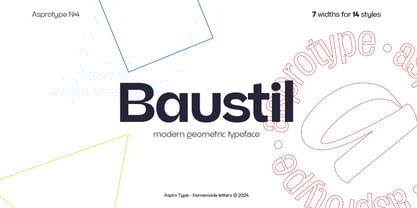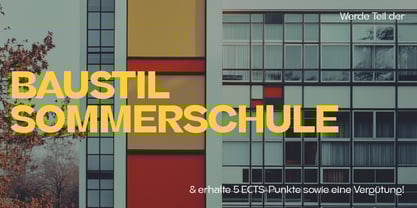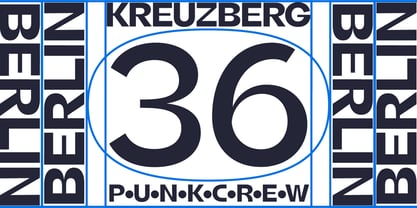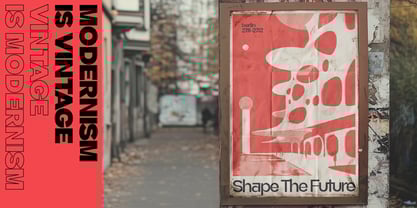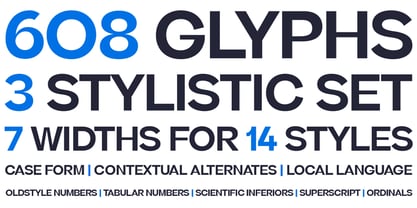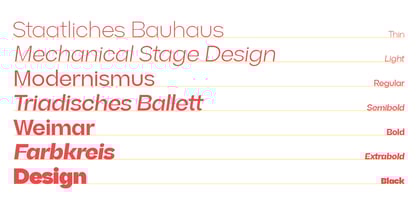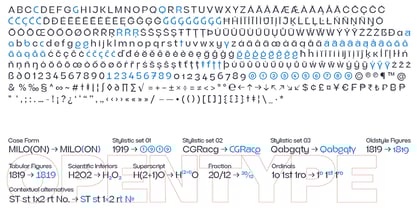
Baustil
Baustil is a geometrically derived sans serif that reinterprets the legacy of Herbert Bayer's universal typography and Bauhaus with a contemporary sensibility. Designed to combine technical precision and functional versatility, Baustil combines studied proportions and refined details to deliver a unique typographic experience.
Baustil's design is distinguished by a wide x-height that enhances readability even in the smallest of sizes, and by the round letter structure, designed to evoke a perfect circle. The formal rigor is enriched by an accentuated contrast in the meridian points, which ensures a uniform mark in the outer contours, preserving elegance and visual coherence even in the largest weights. The ascenders and descenders are proportionate to the generous x-height, contributing to a harmonious overall balance.
Included are:
- Three stylistic sets, offering variations to customize the character to suit the context.
- A true italic, designed to emphasize dynamism and fluidity.
- Full Latin support.
- Tabular numbers, oldstyle, fractions and mathematical symbols, perfect for editorial projects, branding and technical communications.
- Contextual alternatives, designed to ensure smooth and natural reading.
Baustil is perfect for designers and brands who desire a modern aesthetic yet rooted in design history.
Versatile and timeless, Baustil brings the functionality and geometric beauty of Bauhaus to a contemporary context.